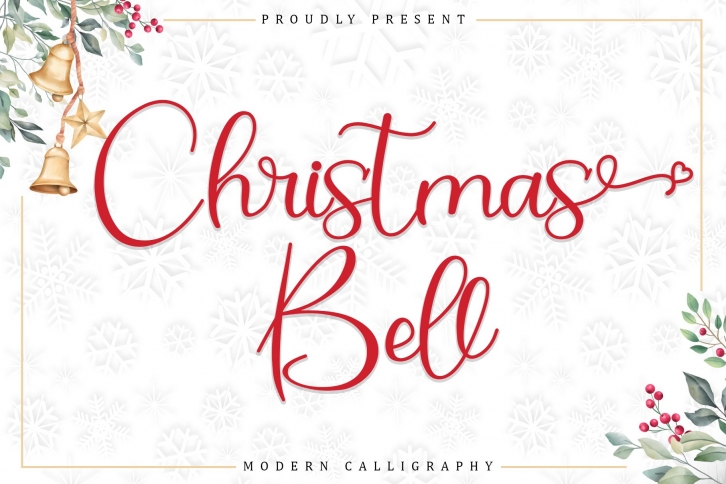
Christmas Bell Font Download
Christmas Bell is a gorgeous font that was realeased on October 20, 2020. The font can be used in many style contexts and design environments. Perfect for invitations, magazines, websites, logos, and more! It was designed by Sakha Design and the file size is 17.28 MB. Thanks for checking out this font!